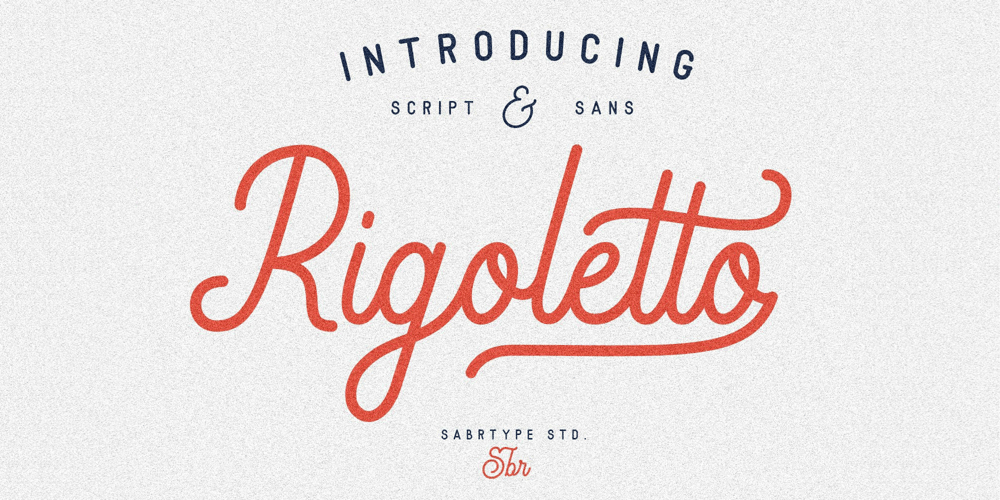
Rigoletto Font Family was designed by Irpan Maulana and published by Sabrcreative. Rigoletto contains 2 styles and family package options. Introducing Rigoletto Font Duo, a stunning combination of a monoline script and Sans Serif fonts. This font duo offers a neat and clean monoline style, complemented by the versatility of the Sans Serif fonts, resulting in designs that are sophisticated, expensive, and elegant. With 70 alternates included, Rigoletto allows you to add decorative elements to your designs effortlessly. It supports a wide range of languages, including English, Danish, Dutch, Estonian, Faroese, Filipino, Finnish, French, German, Hungarian, Icelandic, Irish, Italian, Norwegian, Polish, Portuguese, Spanish, Swedish, and more.Unleash your creativity with Rigoletto Font Duo! It is perfect for various applications such as logotypes, wedding invitations, vintage labels, romantic cards, and much more. Its unique combination of monoline script and Sans Serif fonts adds a touch of elegance to any project.